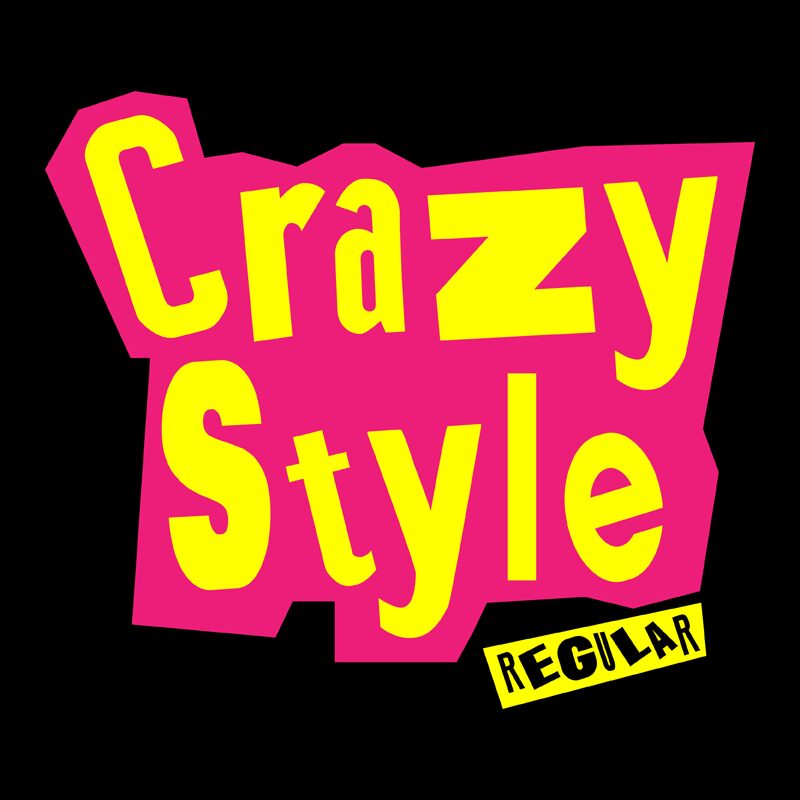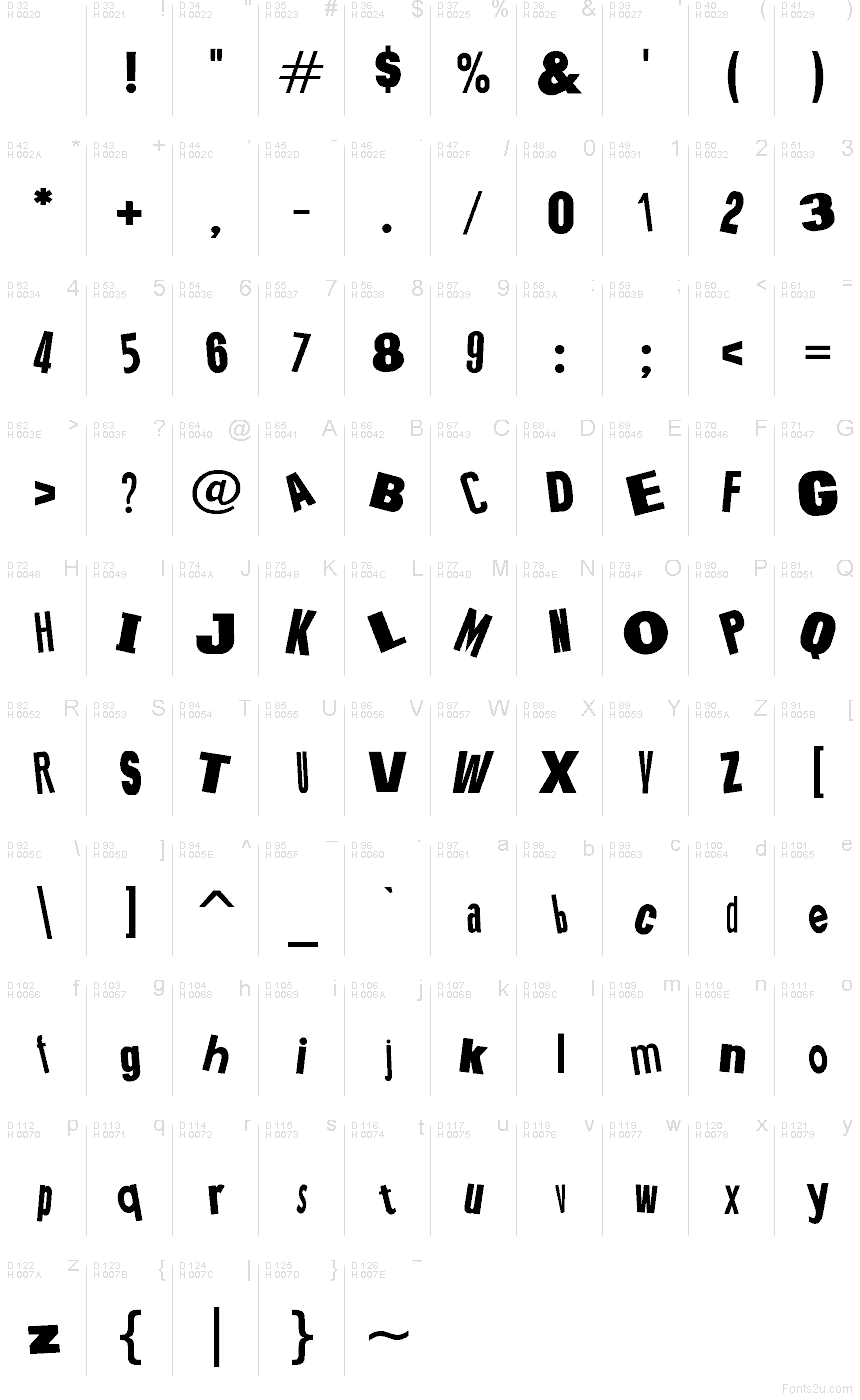
Crazy Style font by Galdino Otten Fonts is a free distorted display typeface that looks like it tumbled out of a cut-and-paste zine. Each letter leans, stretches, or twists in its own way, giving lines of text a jittery, handmade rhythm that still reads clearly. The uneven widths and tilted forms feel playful rather than chaotic, like letters dancing just off-beat.
Using Crazy Style, your titles immediately grab attention on gig posters, streetwear graphics, party flyers, YouTube thumbnails, comics, and bold social posts. This free font shines at larger sizes, where its quirky silhouette and off-kilter spacing really show. Pair it with a clean, neutral sans serif for body copy so Crazy Style can handle the noisy, expressive parts of your design.